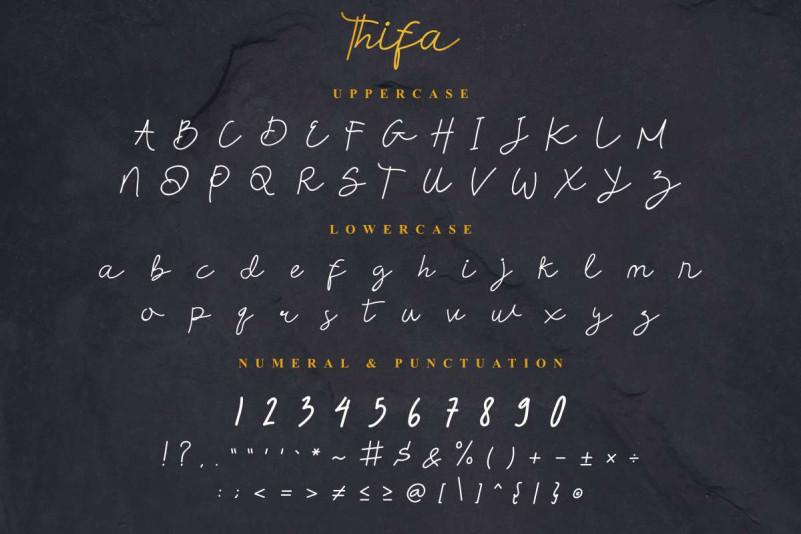
Thifa Script Font
Hola Everybody, please welcome the latest artwork of our team : Thifa Script Font! Thifa is a beautiful monoline handwriting font script. This will work great for signature, product name, branding, logotype (with extended license), flyer, album cover, social media, magazine, menu, etc.